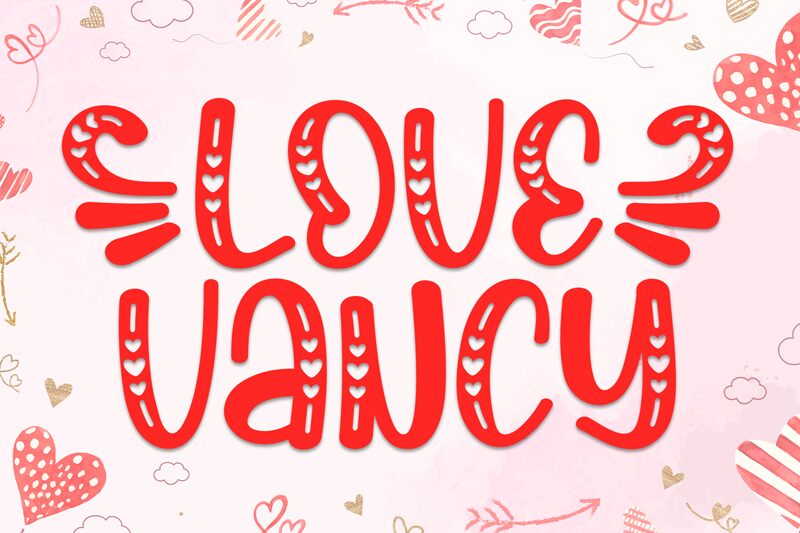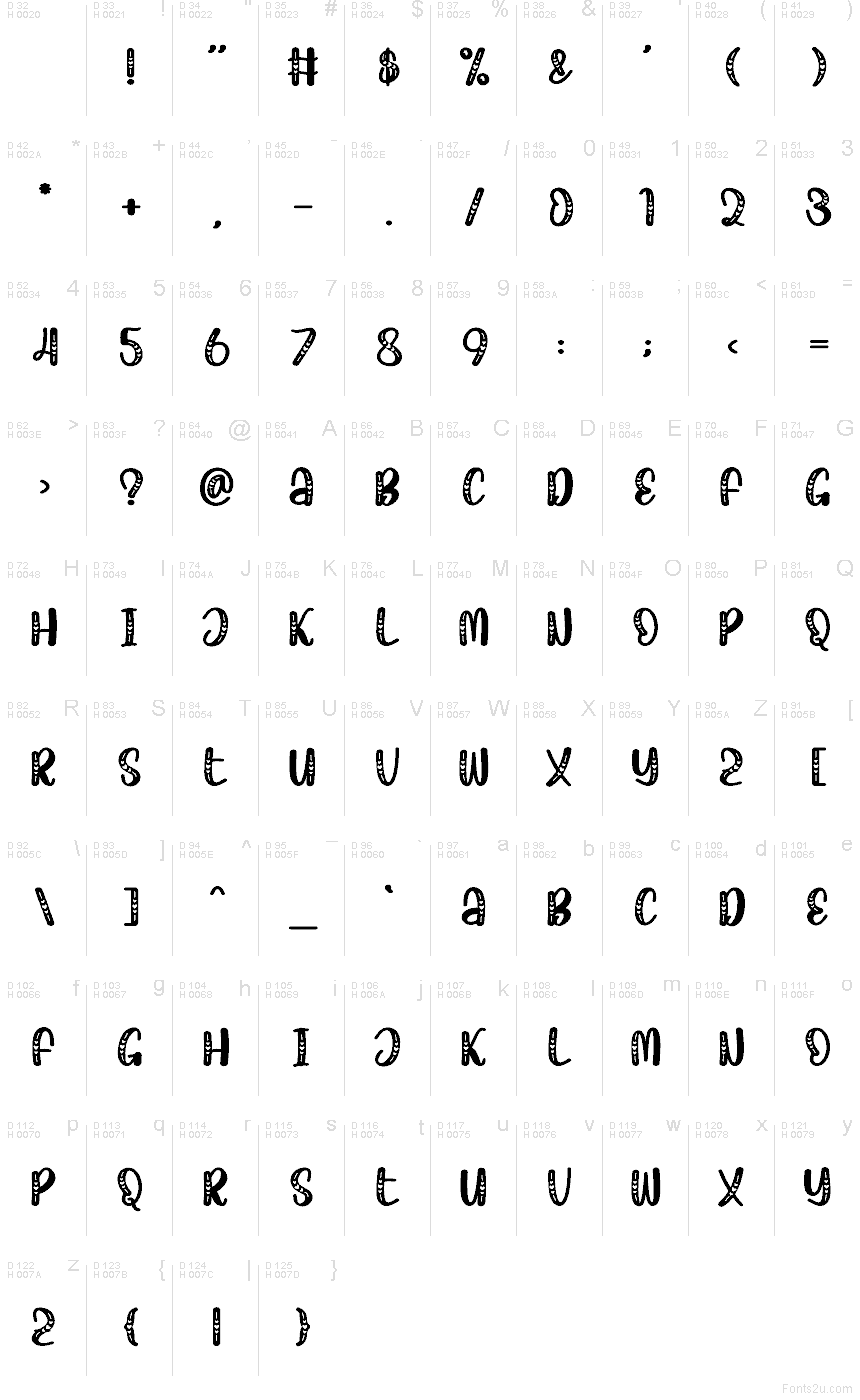
Love Vancy font by Scratchones is a free Valentine holiday typeface that looks like it was doodled on a love note. Rounded, candy-like letters curl upward with a gentle bounce, while tiny heart cutouts run along the strokes like a string of confetti. The bold black shapes keep all that sweetness easy to read, so even with the playful details it still lands with a clear, confident message.
Using Love Vancy, romantic designs feel instantly handmade and warm. This free font shines on Valentine cards, party invitations, classroom printables, stickers, and sweet product packaging or tags. It also works beautifully for social media graphics announcing sales or date nights. Try pairing Love Vancy with a clean sans serif for body text and keep Love Vancy big and bold in headings to show off those heart-filled curves.